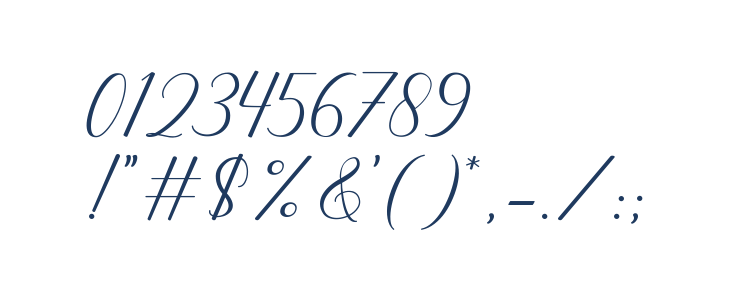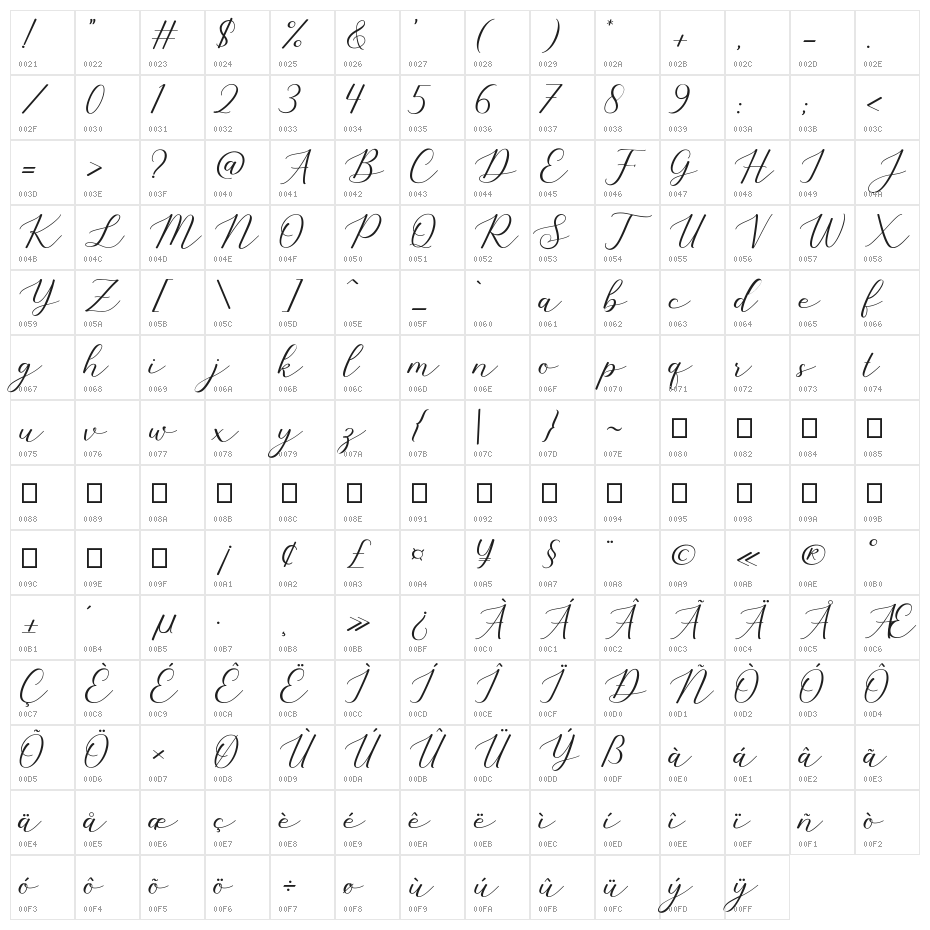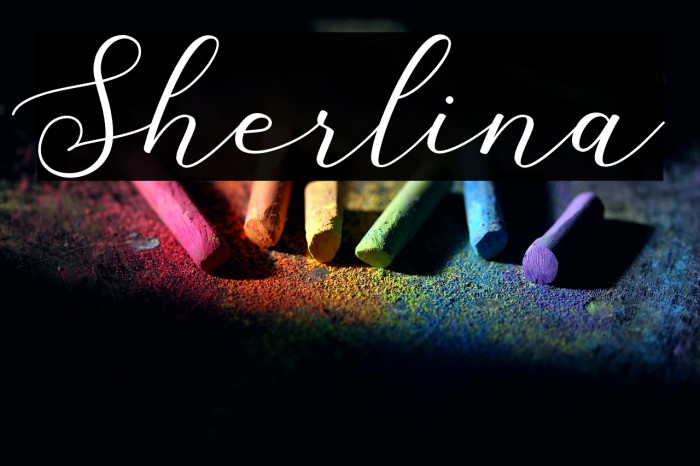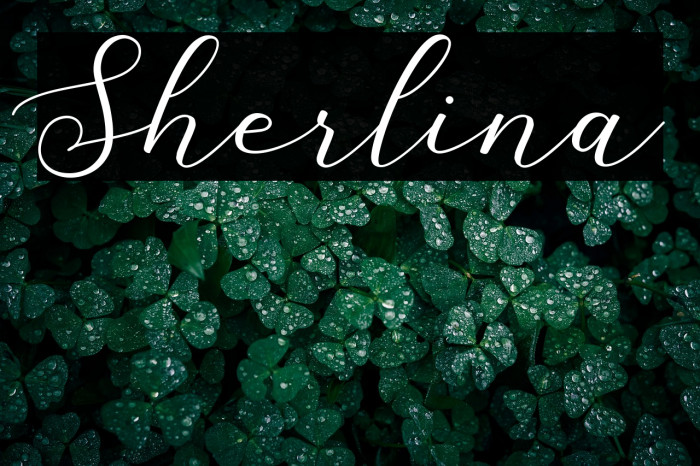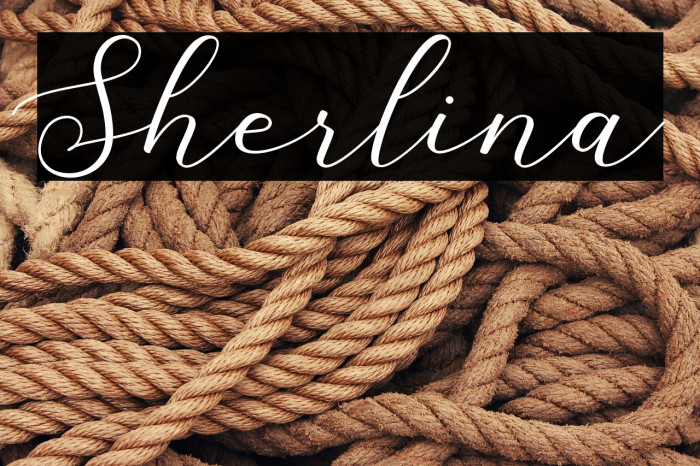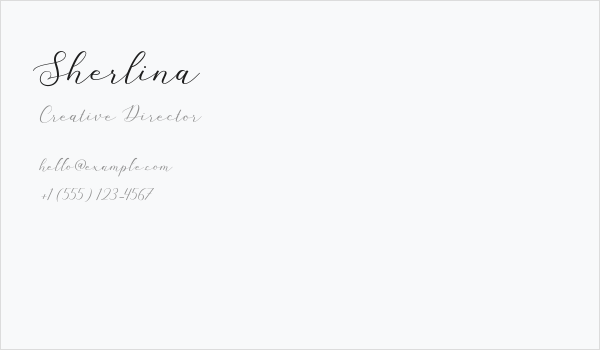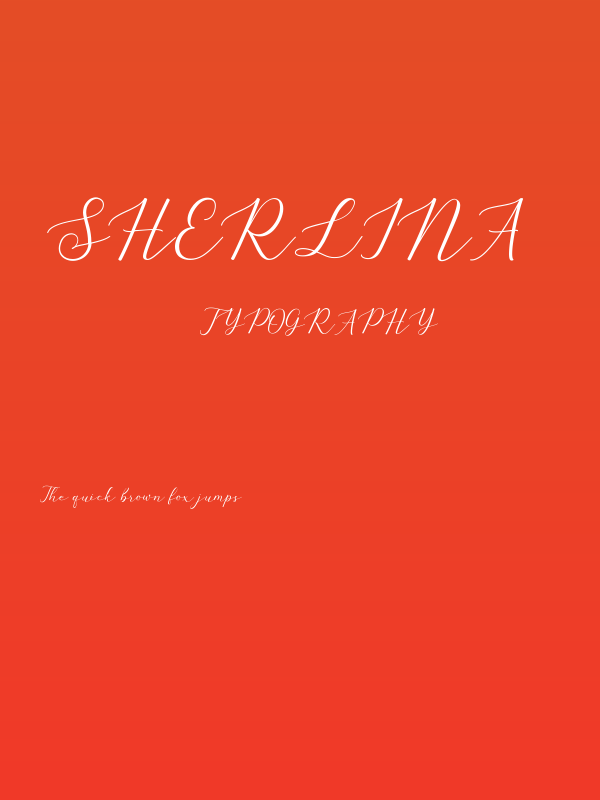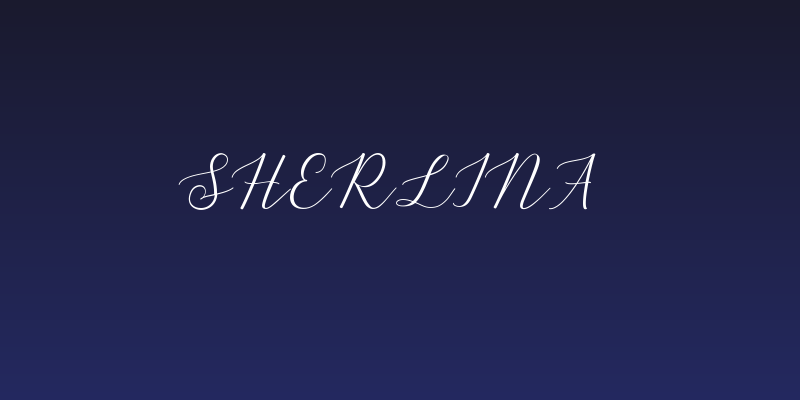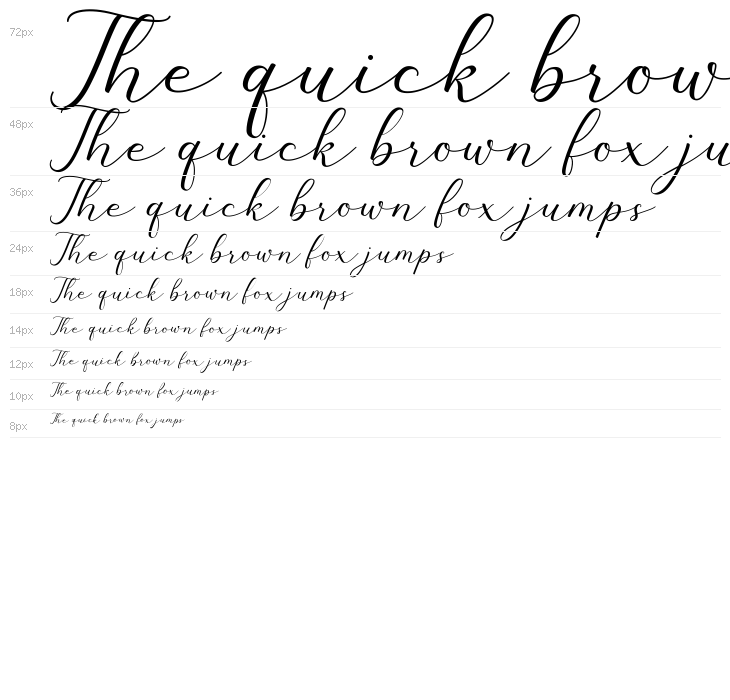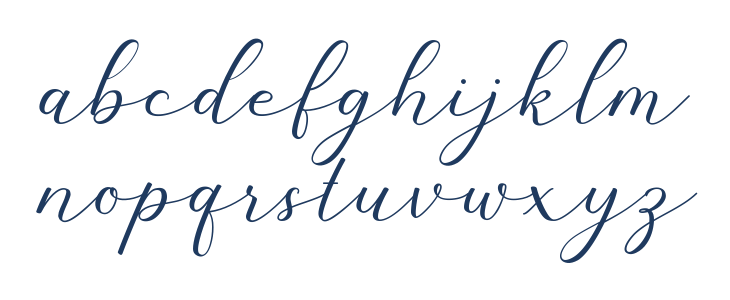
Sherlina Font
Sherlina Description
This elegant script font features flowing, cursive letterforms with a graceful and sophisticated appearance. The uppercase letters are slightly more ornate, with sweeping curves and delicate flourishes, while the lowercase letters maintain a consistent, smooth flow. The numerals are stylish and complement the overall script style, adding a touch of refinement. Special characters are thoughtfully designed to match the aesthetic, making this font versatile for various applications. The overall look is both classic and modern, suitable for projects that require a touch of elegance.
| Overall Style | Elegant, Modern |
| Proposed Projects | Ideal for wedding invitations, elegant branding, personal stationery, and upscale packaging. |